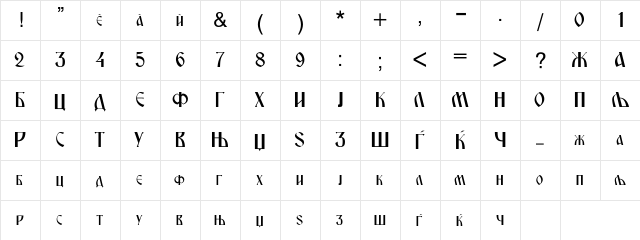
MirosKir1 Regular Font Preview
MirosKir1 Regular
MirosKir1 Regular Font Details
Design Context for MirosKir1 Typeface
MirosKir1 is a composed and adaptable typeface that performs quietly and consistently across a wide range of design contexts.